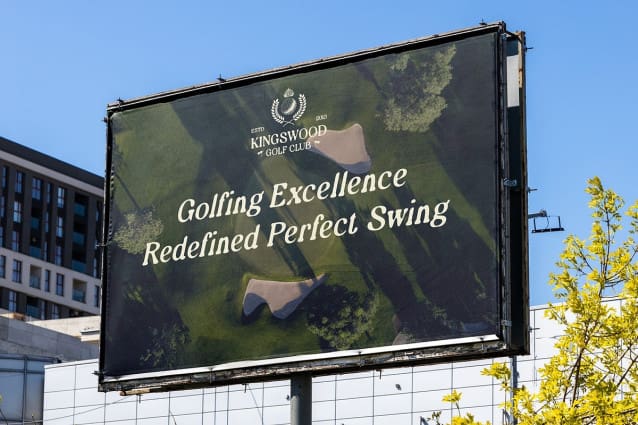
Forena Blur Font
Forena Blur Font is a classic serif font that beautifully blends timeless elegance with a soft, modern twist. Its rounded edges offer a gentle, approachable look, while the subtle blur effect introduces a unique, artistic flair. This combination creates a font that feels both refined and contemporary, perfect for designs where sophistication and creativity are essential.
Refined and Artistic Appeal The rounded serifs of Forena Blur add a touch of warmth and friendliness to the font’s overall design, making it ideal for projects that require elegance without feeling too formal. The blur effect subtly softens the lines, enhancing its artistic quality and giving it a sense of movement, making it stand out in luxury branding, formal invitations, and creative editorial work.
Versatile for Luxury and Creative Projects Forena Blur excels in a wide range of applications. Whether you’re designing high-end branding, elegant invitations, or creative editorial layouts, this font adds a refined, artistic touch that captivates the viewer. Its combination of classic form and modern texture makes it a versatile choice for those seeking sophistication with a hint of creativity.